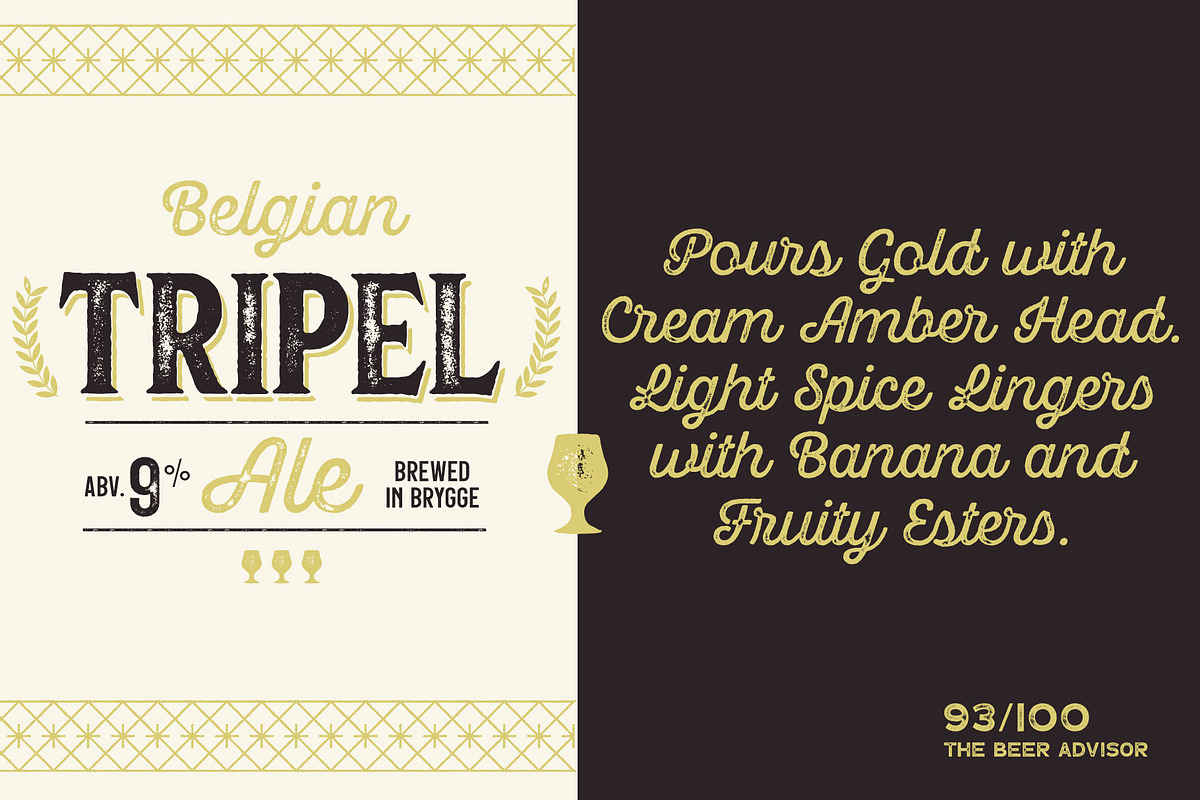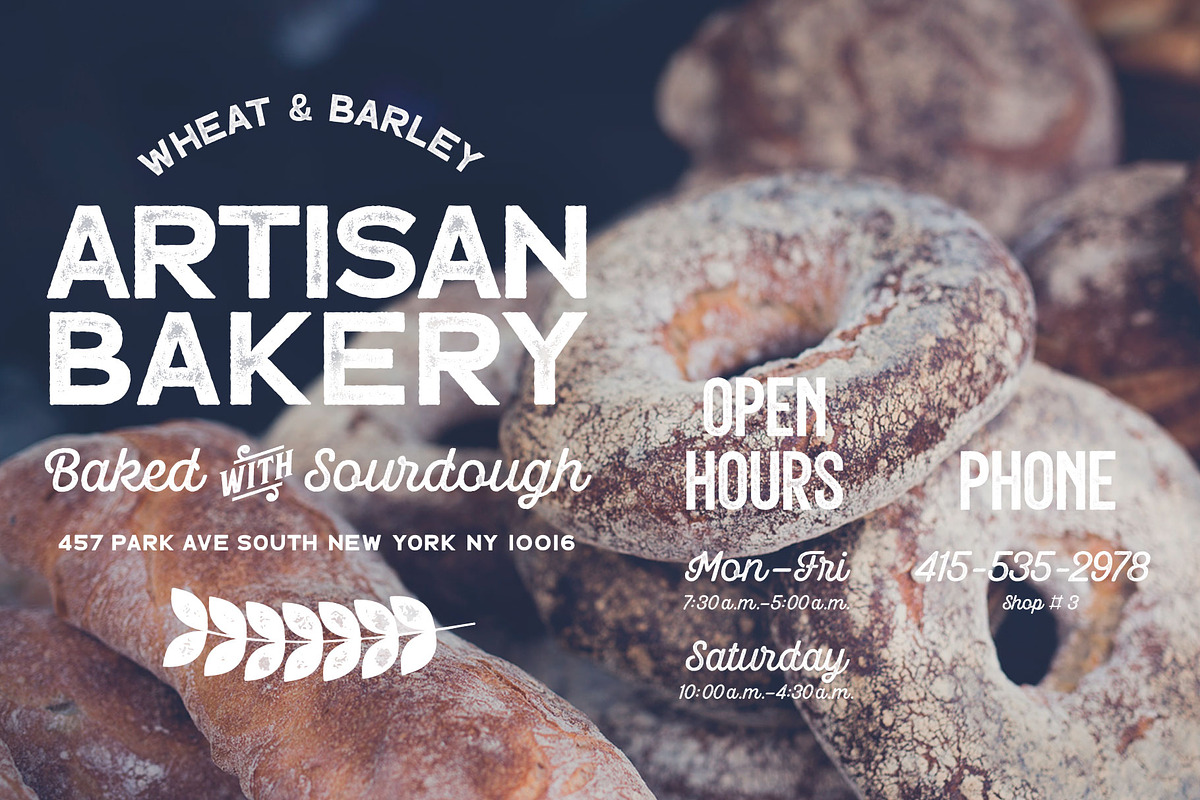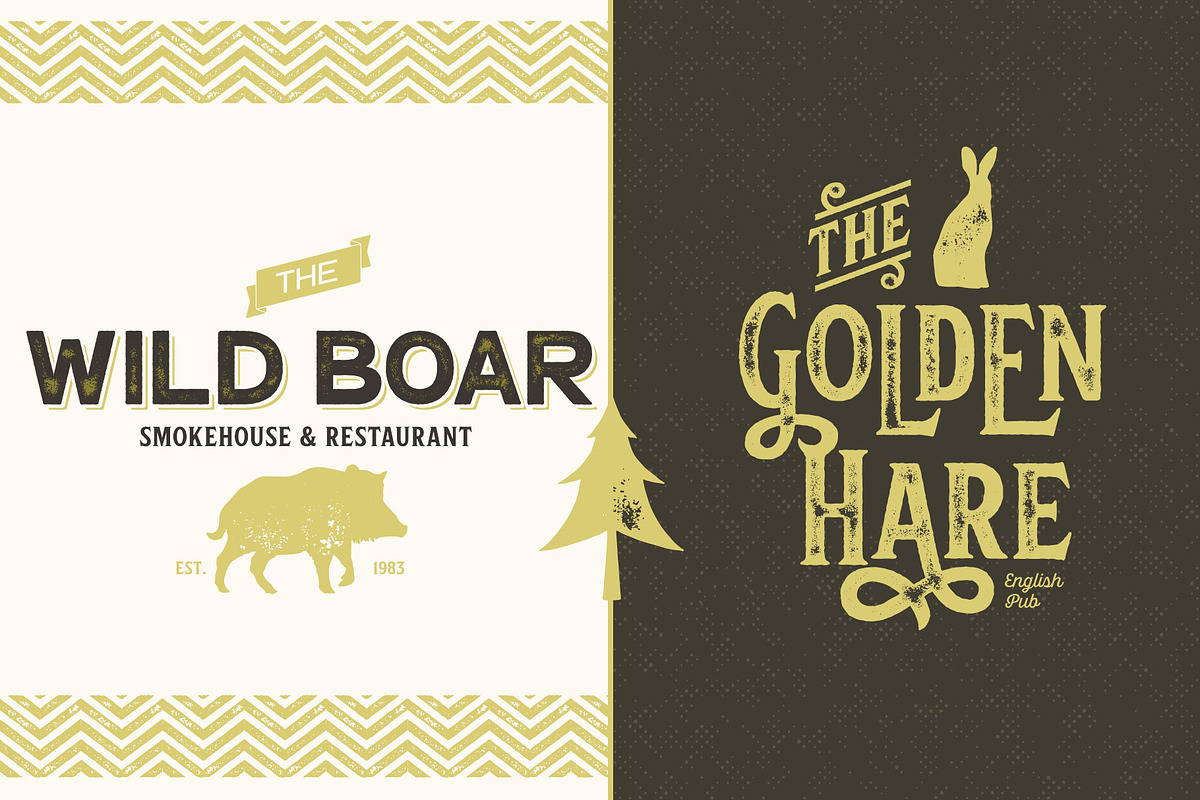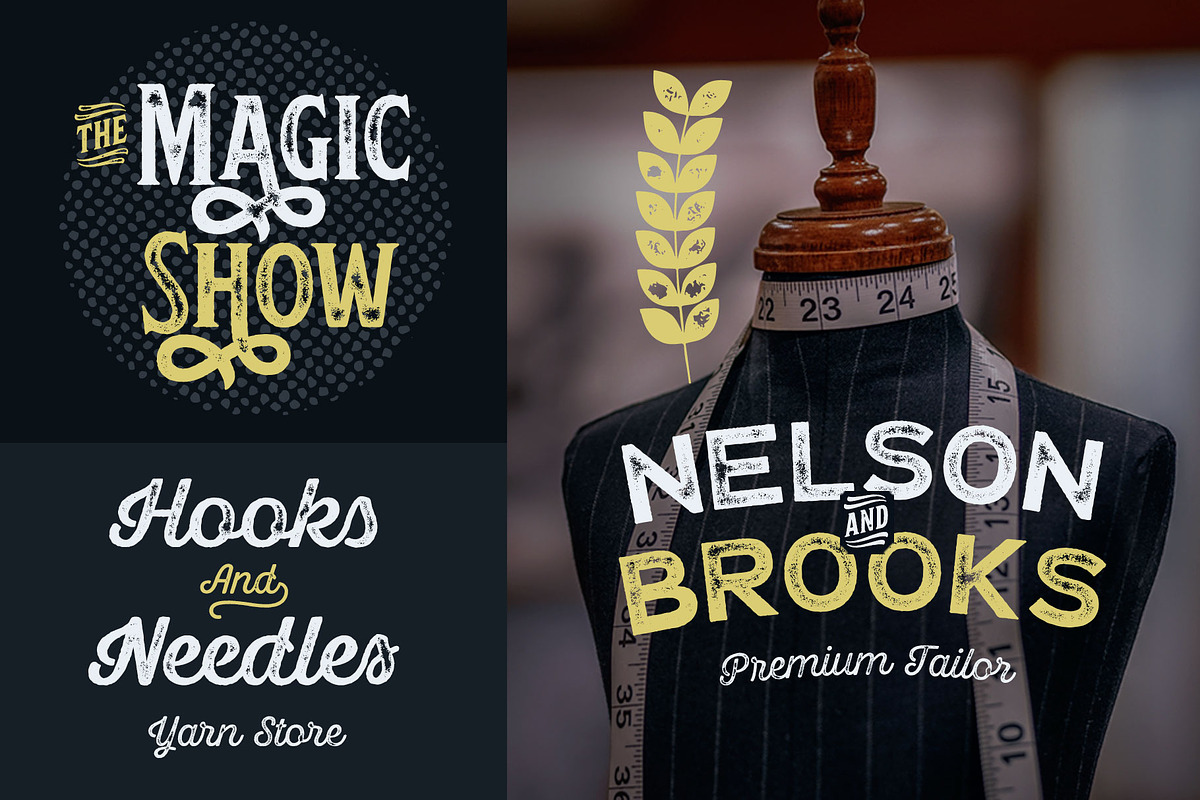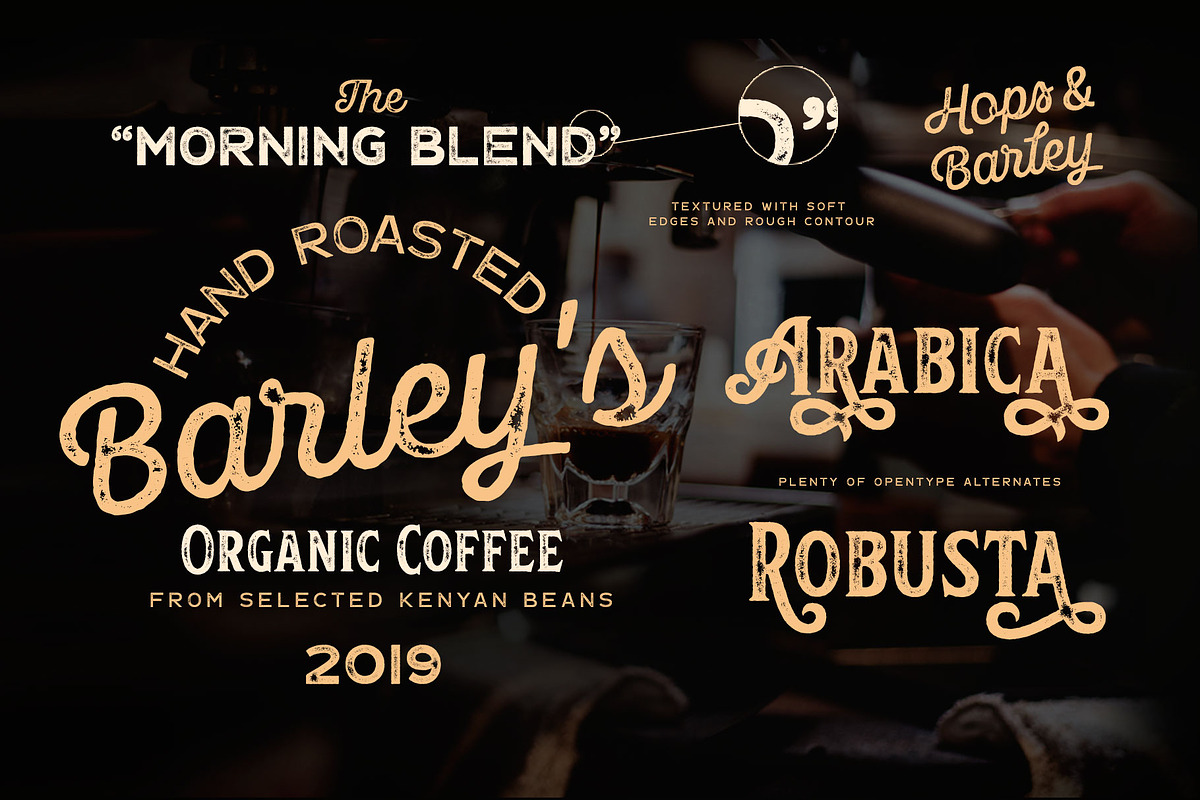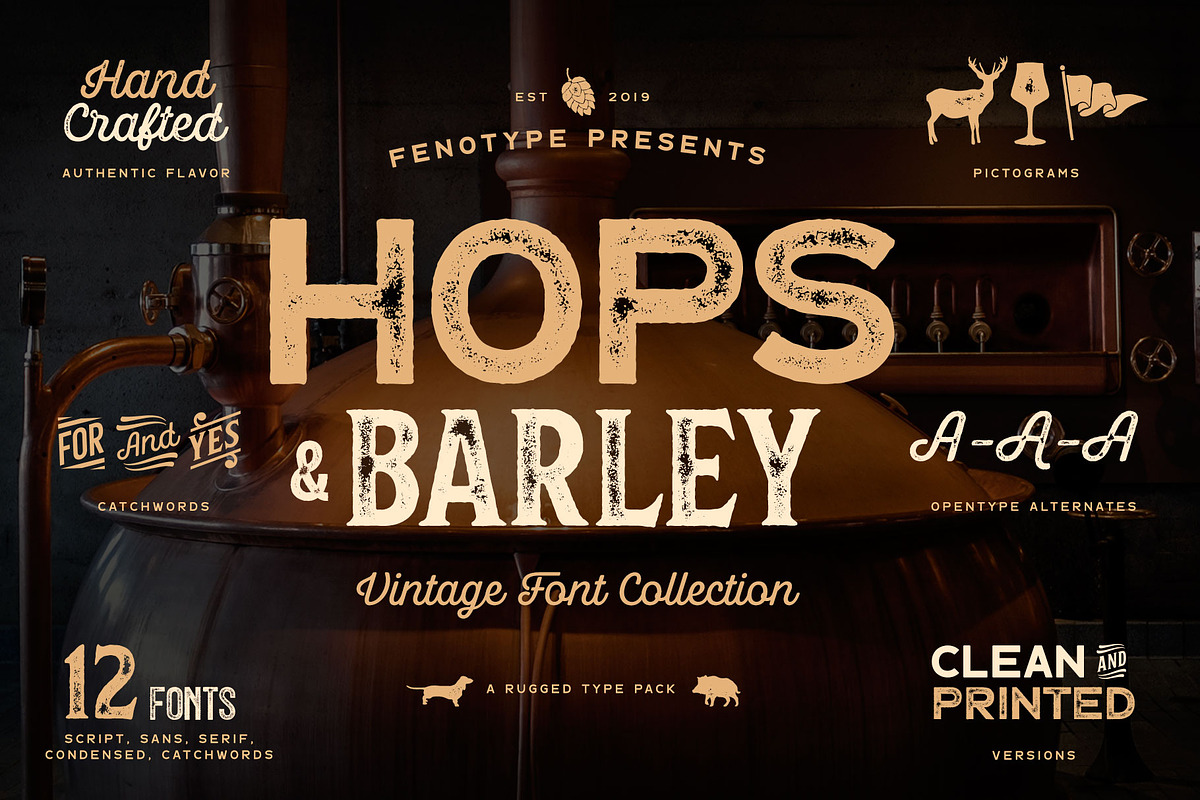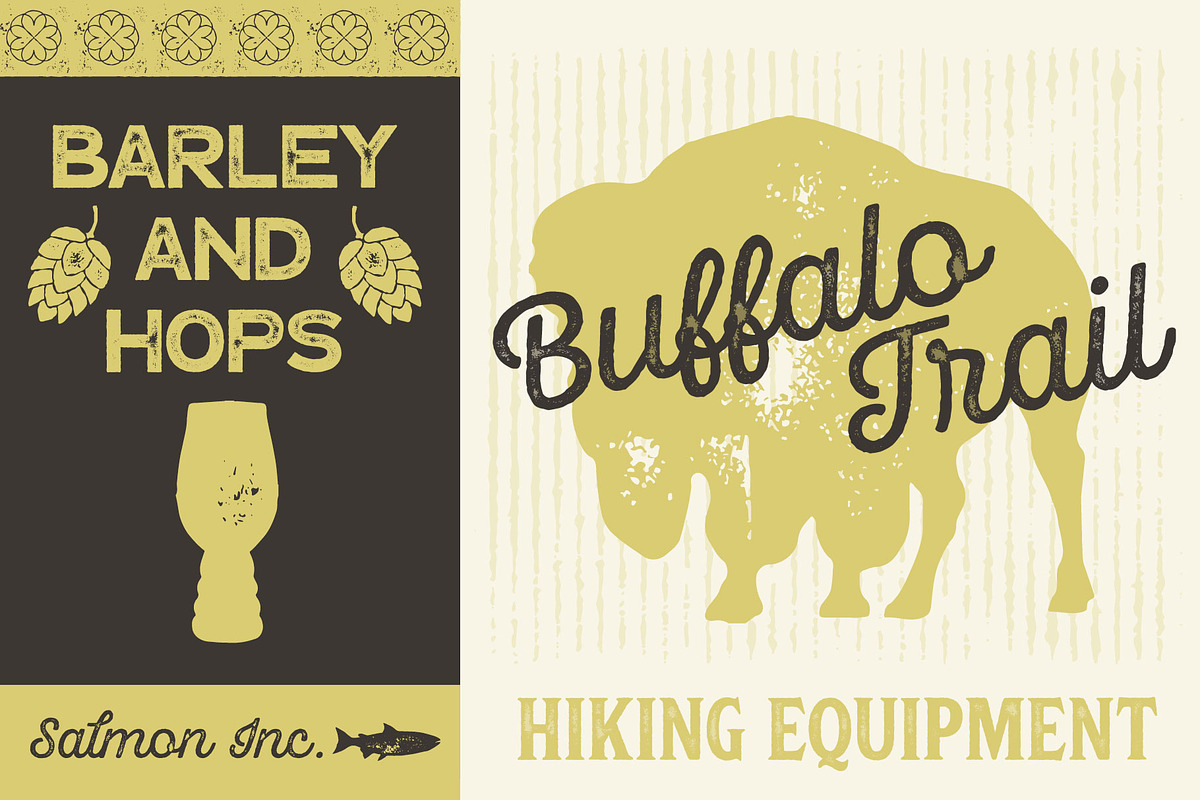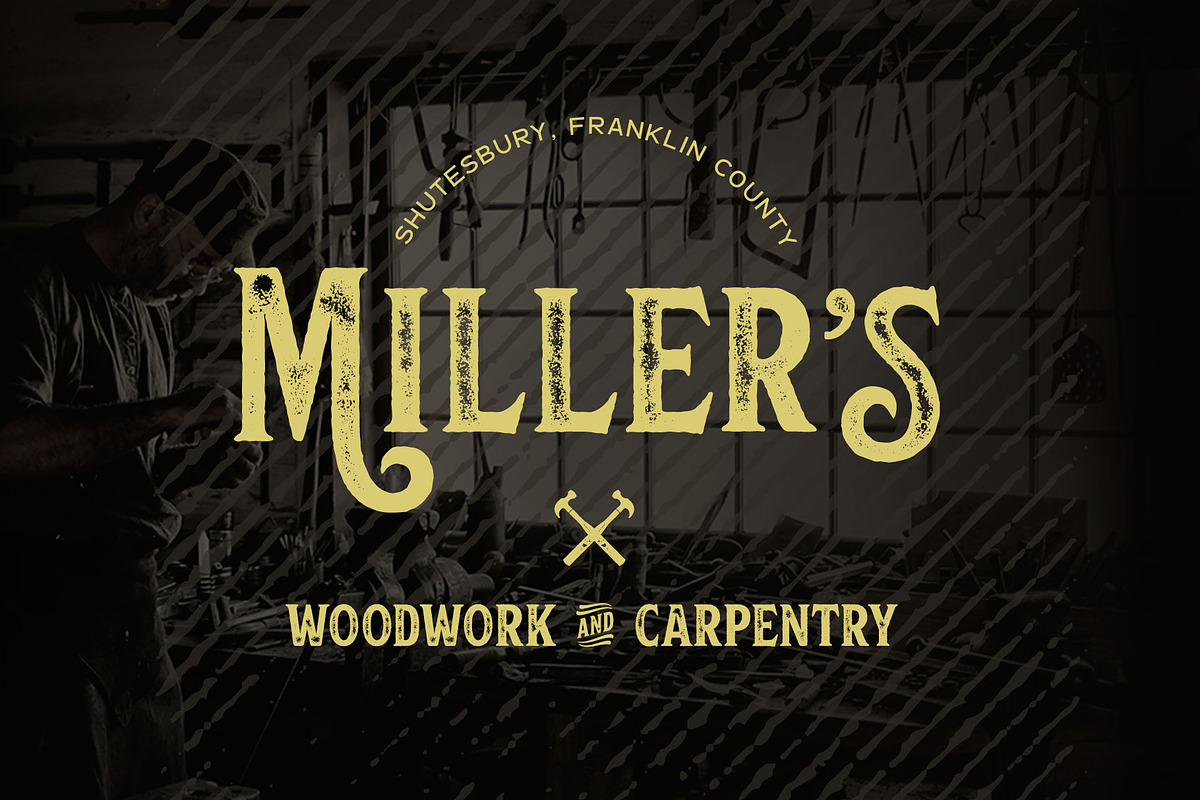
Hops And Barley font Collection
Hops And Barley - a Vintage Font Collection.
Hops And Barley includes following:
6 fonts - a textured and clean version of each
Catchwords, textured and clean version
Ornaments, textured and clean version
Hops And Barleys’ core is four font styles. Fonts are designed in the same proportions and they have the same soft edges so that they work great together. Here’s a short introduction to the fonts
Hops And Barley 1 -A Connected Script with Contextual, Swash, Stylistic and Titling Alternates
Hops And Barley 1b -A Bold version of Script
Hops And Barley 2 -A Serif vernacular Swash, Stylistic and Titling Alternates
Hops And Barley 3 -A sturdy Sans Serif with a wide character
Hops And Barley 3b -A Bold version of Sans Serif
Hops And Barley 4 -A Condensed Sans Serif
Hops And Barley 5 -A set of 61 Catchwords
Hops And Barley 6 -A set of 71 Pictograms
Hops and Barley fonts have rugged outline and eroded texture inside the letters. Hops And Barley C stands for Clean - they are an identical set of the styles but they come with straight and clean outlines and softened edges.
Hops and Barley fonts work great together or on their own. They’re a fantastic choice for any display use and when paired they can cover the whole display part in any project from website to packaging and from poster to logo.